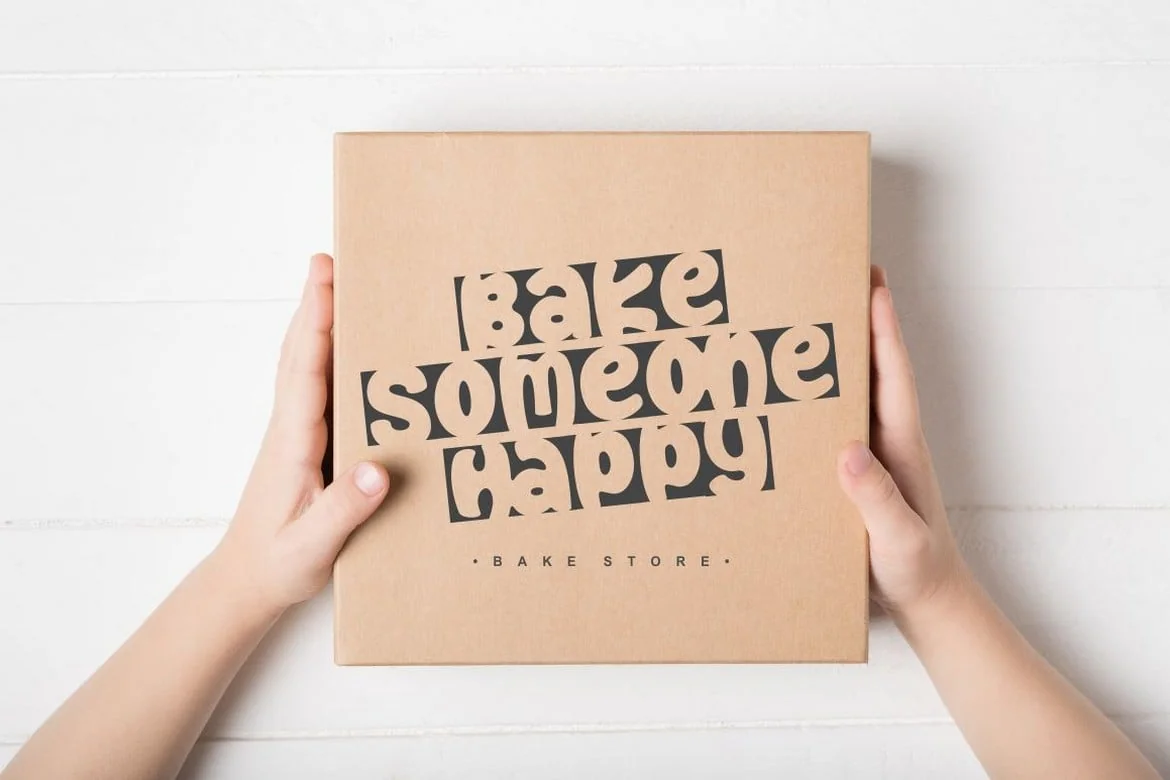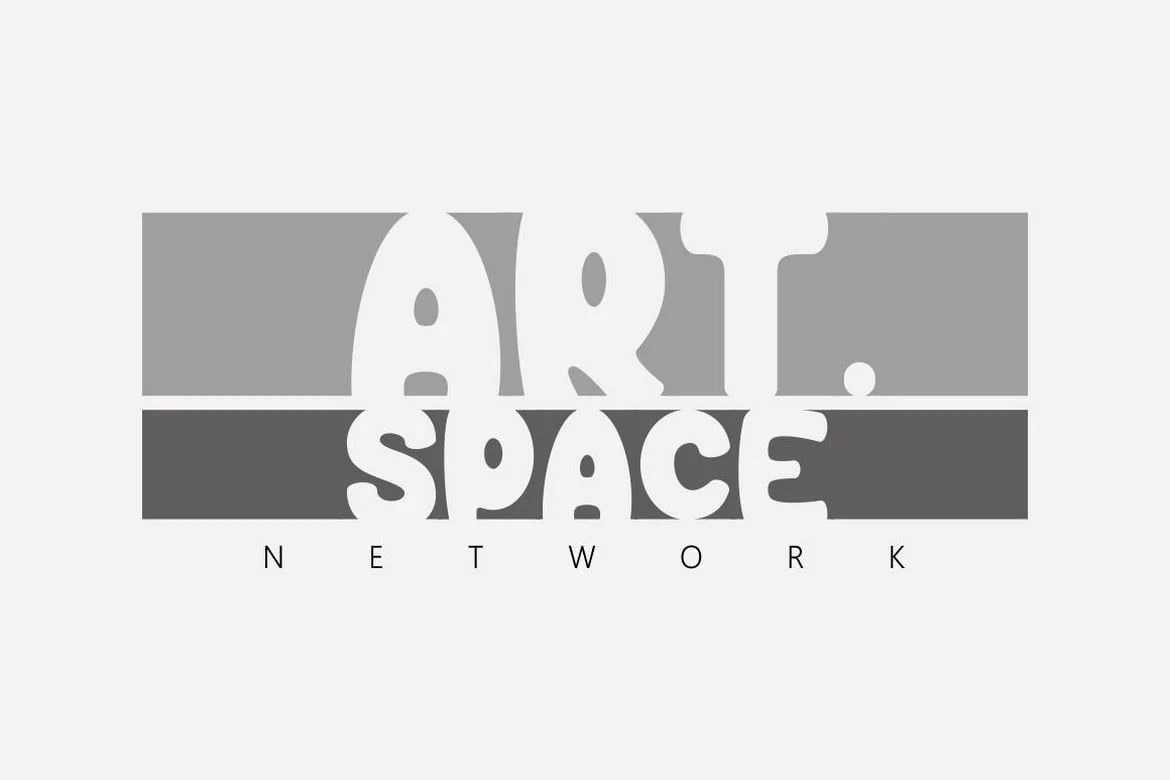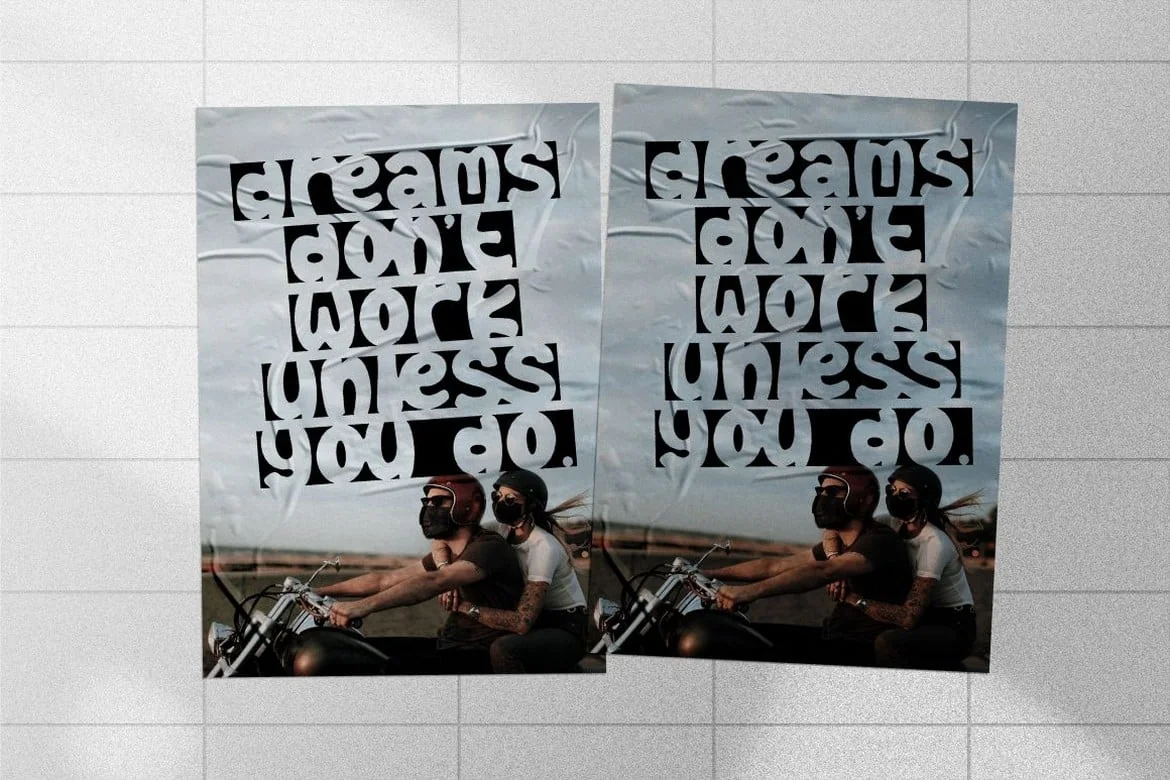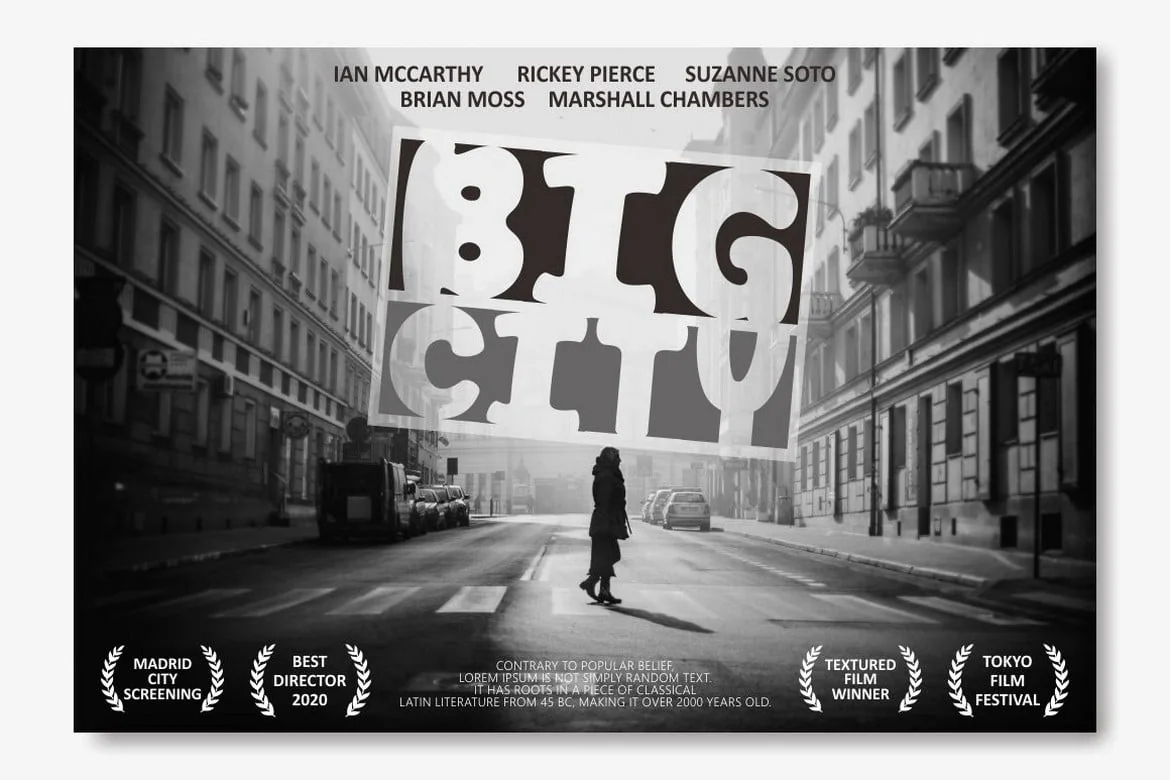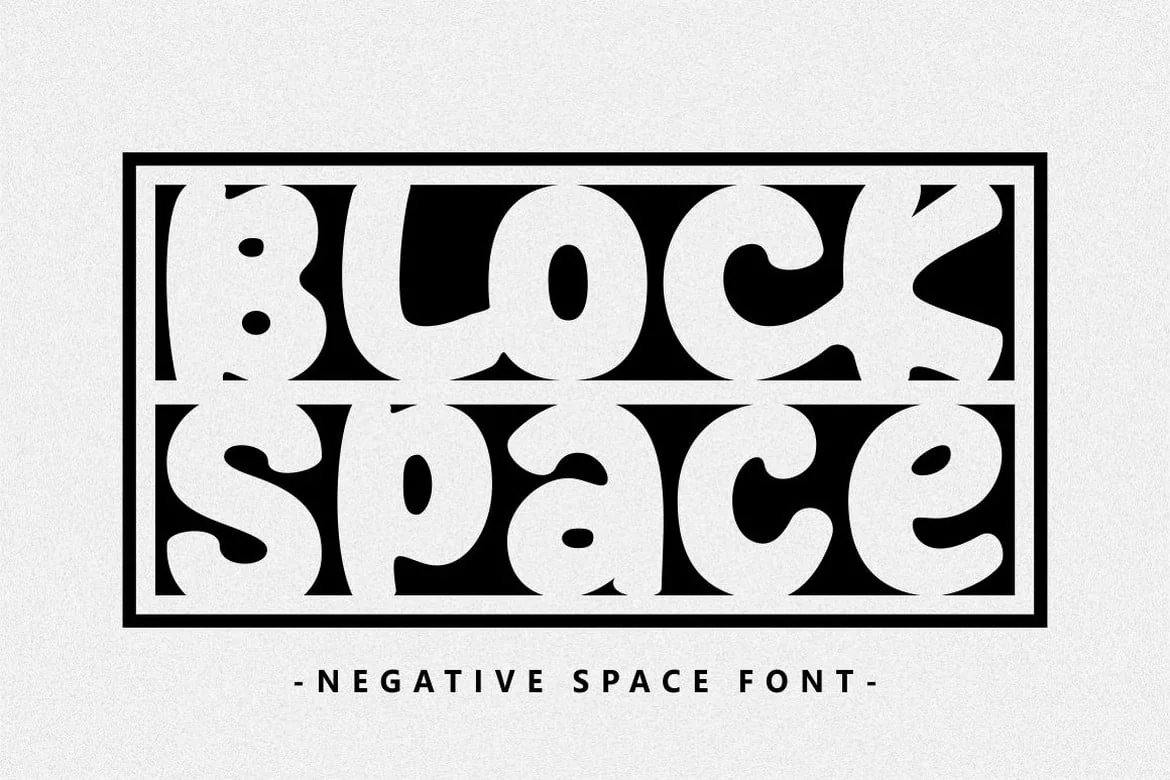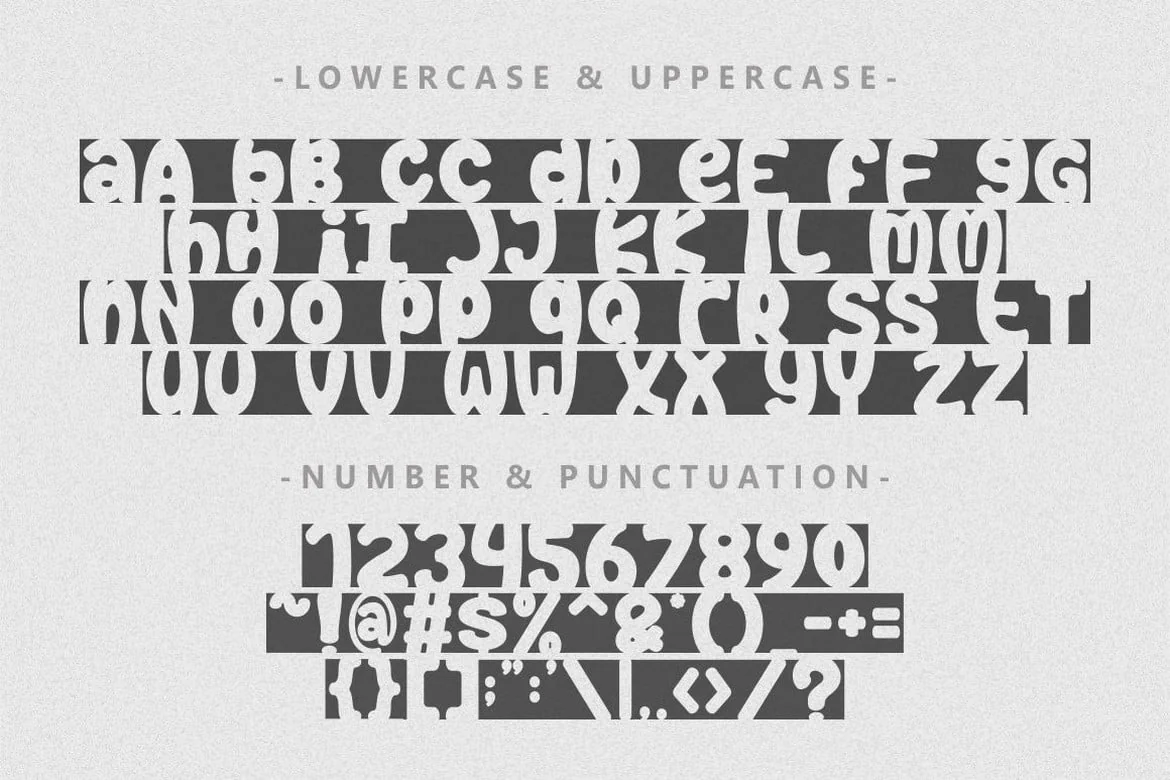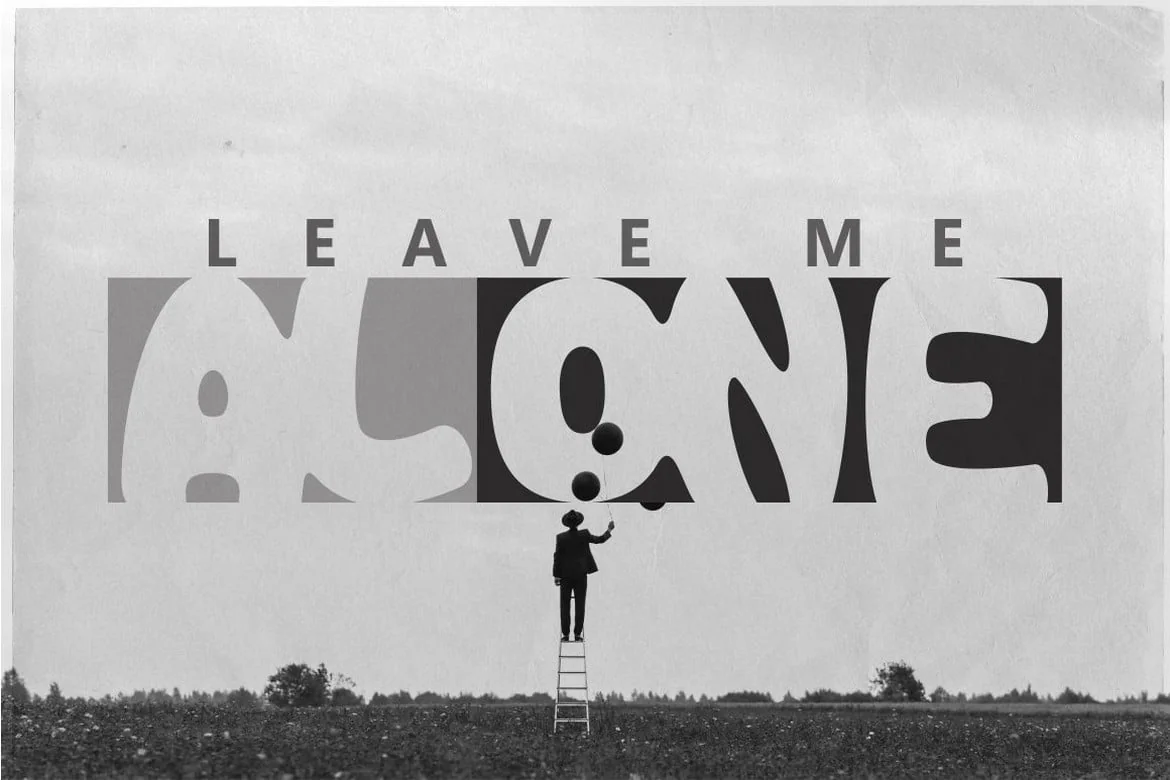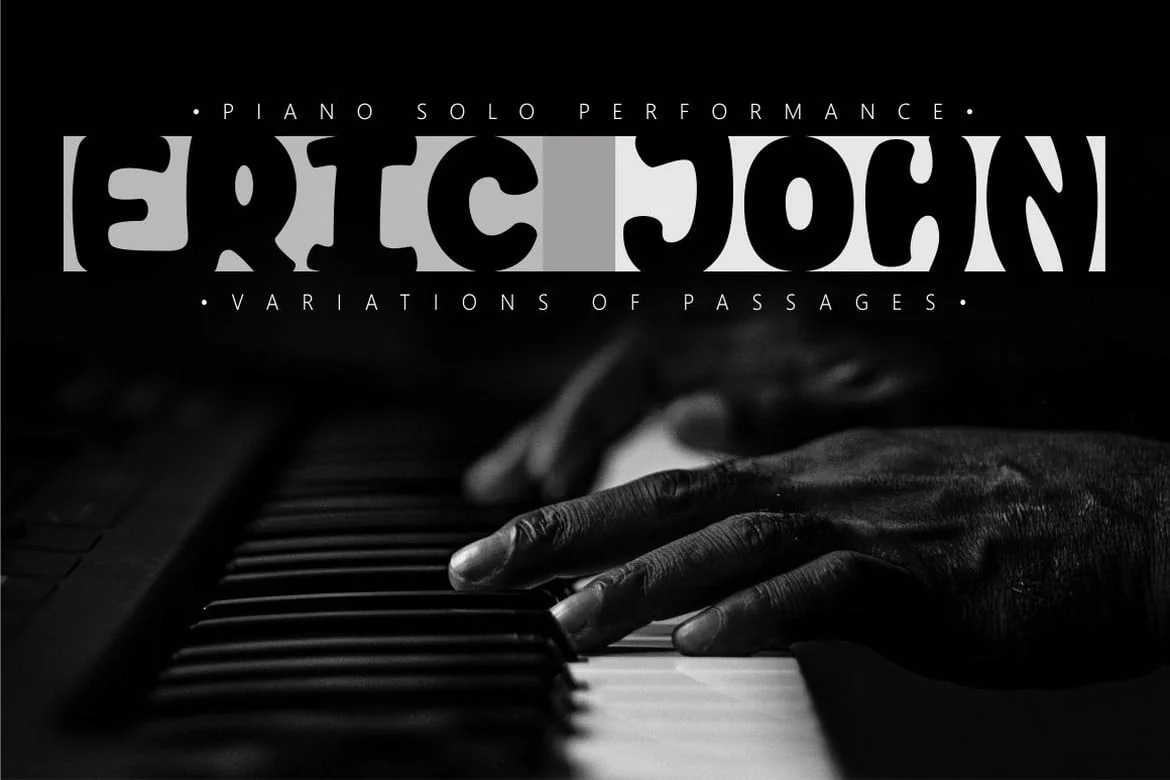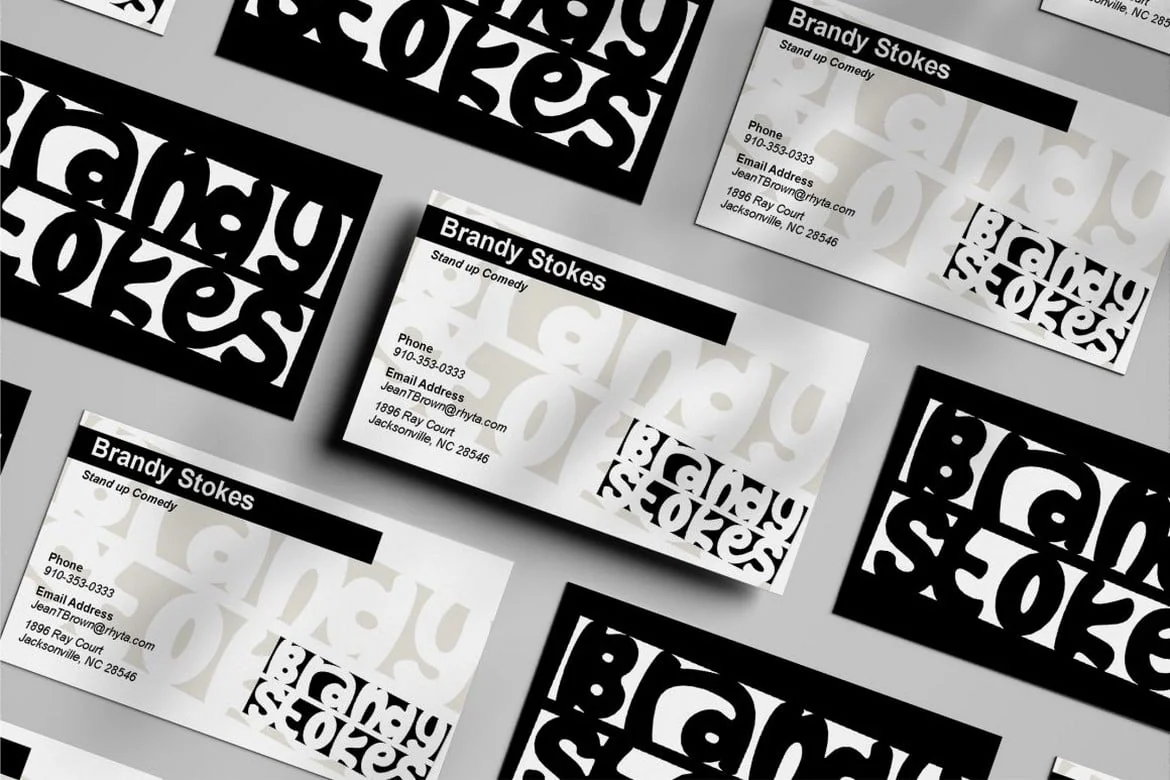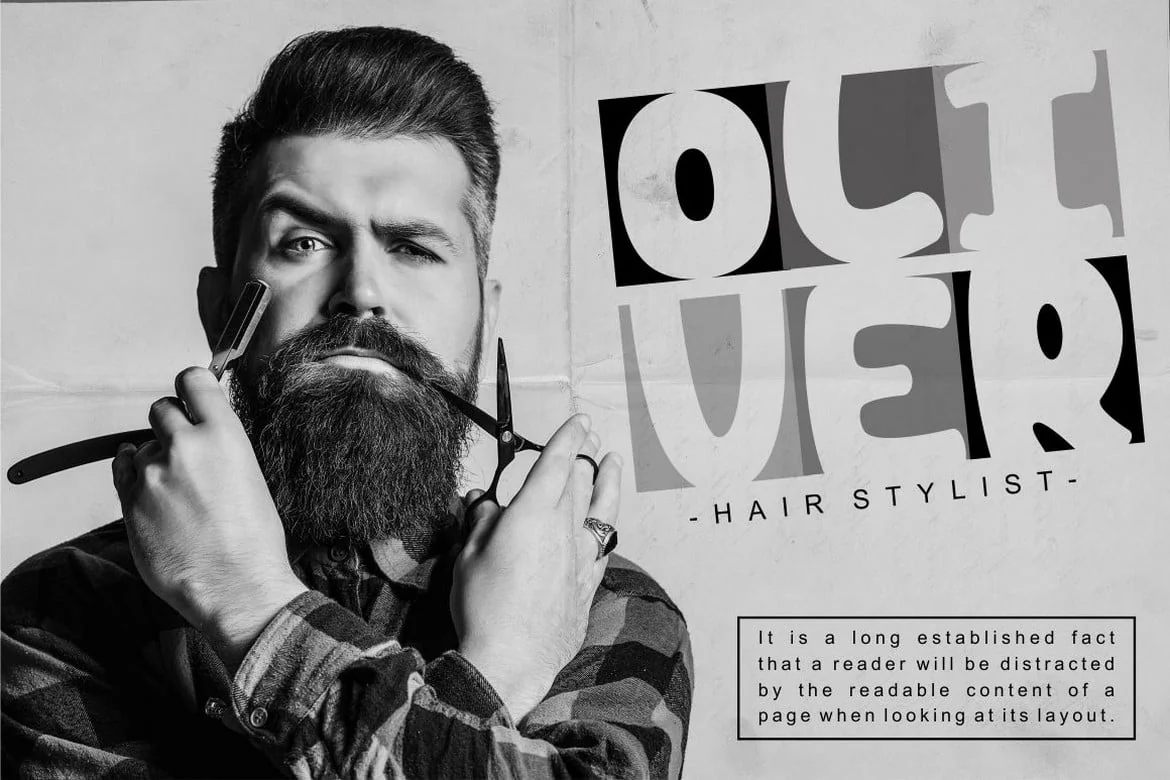
Block Space – Negative Space Font
Introducing Block Space, a negative space font. This font is perfect for your projects related branding design, logo, posters, logotype, header, quote, invitation, greeting card, cover, poster, design and any more.
Come with lot of ligatures character, it’s make this font more unique and stand out . This font is also support multi language.